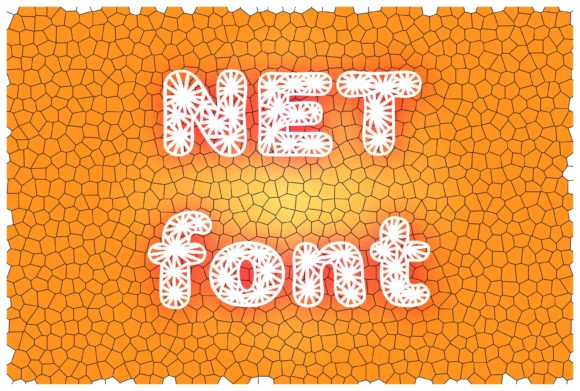
Journey into the world of visual enchantment with Net Font, a decorative font family that ignites creativity and transforms ordinary designs into mesmerizing masterpieces. Let your imagination soar as you explore the endless possibilities of this font, meticulously crafted to elevate your digital creations. Whether you're a seasoned designer or just starting your creative journey, Net Font is your gateway to a world of captivating designs.
Immerse yourself in the beauty of Net Font, where each letter dances with an ethereal grace, captivating the eyes and igniting the imagination. With its intricate details and flowing lines, this font breathes life into your designs, adding a touch of elegance and sophistication that sets your work apart. Experience the joy of creating designs that resonate with your audience, leaving a lasting impression that lingers long after they've seen your work.
Step into the spotlight and let Net Font take center stage in your billboard designs. Its bold and attention-grabbing presence commands attention, ensuring your message cuts through the noise and reaches your target audience. Transform your billboards into visual symphonies that captivate passersby, leaving them in awe of your creative brilliance.
Net Font is more than just a font; it's an artistic expression that speaks to the heart. Its versatility extends beyond billboards, making it the perfect choice for a wide range of creative endeavors. Craft stunning logos that embody your brand's unique identity, design eye-catching social media posts that engage your followers, or create personalized greeting cards that leave a lasting impression.
With Net Font as your creative companion, you'll discover a newfound passion for design. Its enchanting beauty will inspire you to push the boundaries of your creativity, resulting in designs that captivate and mesmerize. Embrace the power of Net Font and unlock the true potential of your design skills.